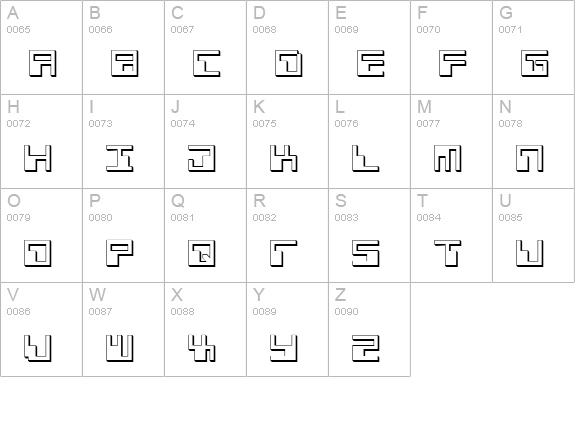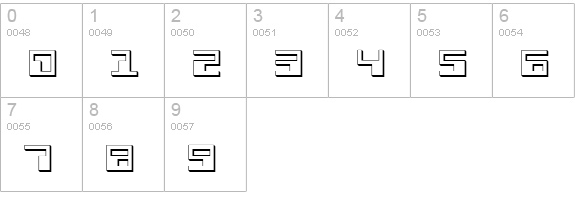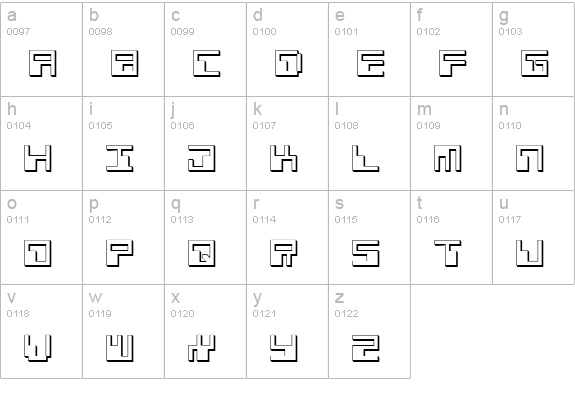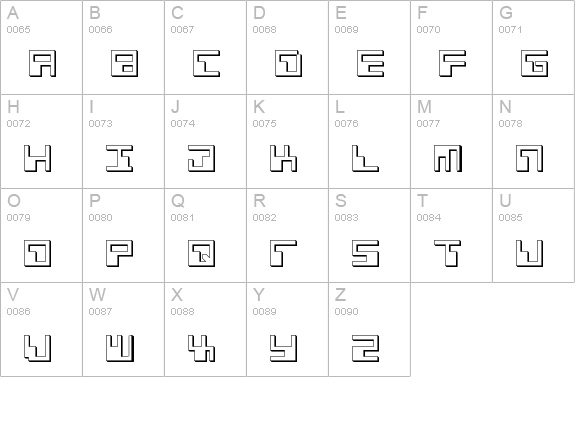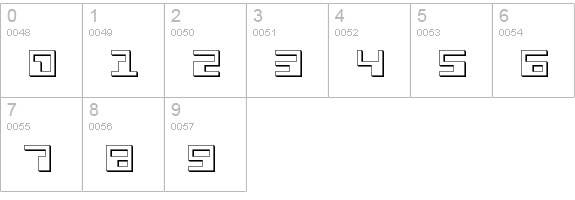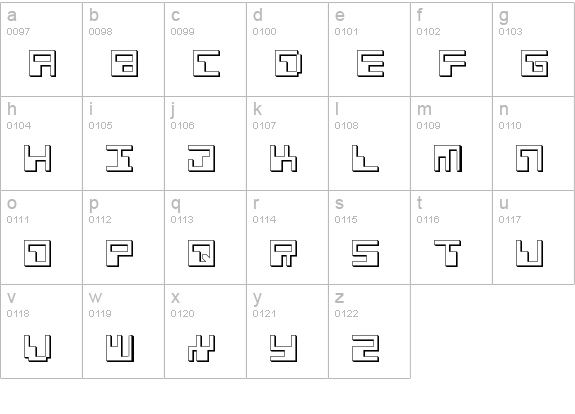
Phaser Bank 3D font is a striking and futuristic typeface that exudes a sense of energy and dynamism. Its bold, three-dimensional design gives any text a powerful and edgy appearance, making it perfect for projects that require a strong visual impact. The sharp angles and sleek lines of this font create a modern and high-tech look that is sure to catch the eye. The best part? Phaser Bank 3D font is available for free download at FontsMarket.com. This means that you can easily add this eye-catching font to your design arsenal without breaking the bank. Whether you're working on a graphic design project, a website, or any other creative endeavor, Phaser Bank 3D font is sure to make a bold statement and take your work to the next level. Download it today and see the impact it can make on your designs!